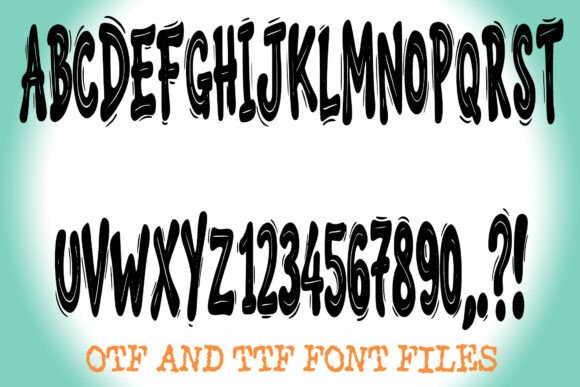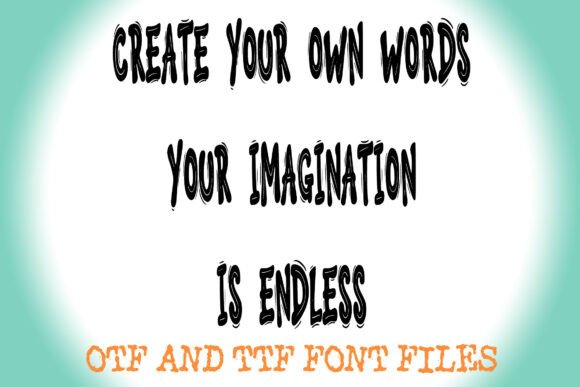
Adding a Dash of Whimsy to Your Designs
Remember the thrill of creating something entirely new, with the world of possibilities stretching out before you like a blank canvas? That’s exactly what happens when you bring the Bouncy Cartoon Font into your design projects. As you tap the keyboard, the words spring to life with a playful, carefree spirit that’s impossible to resist. This delightful font isn’t just a typeface – it’s an invitation to inject a little more joy and personality into your work.
Whether you’re crafting a children’s book, designing a YouTube thumbnail, or creating a social media graphic, the Bouncy Cartoon Font is an ideal choice. Its unique blend of whimsy and charm makes it an instant winner, guaranteed to put a smile on your audience’s faces and leave a lasting impression. With its hand-drawn feel and wobbly characters, this font is the perfect way to add a touch of magic to your designs.
Bouncy Cartoon Font Key Features
• Character Set: The font includes a wide range of characters, including uppercase and lowercase letters, numbers, punctuation, and special characters.
• Unique Characteristics: The font’s bouncy, cartoon-like design makes it ideal for children’s books, comics, and other creative projects that require a playful tone.
Bouncy Cartoon Font Review
At first glance, the Bouncy Cartoon Font is quite playful and eye-catching ✨. The use of rounded edges and exaggerated curves gives it a fun, childlike feel that’s perfect for cartoons, kids’ products, or any design that needs a lighthearted touch. The font’s versatility allows it to work well in both digital and print media.
One of the standout features of the Bouncy Cartoon Font is its ability to be customized ✨. Users can easily adjust the font’s size, color, and style to fit their specific needs. Additionally, the font’s OpenType features allow for advanced typographic control, making it a great choice for designers who want to add some personality to their work.
• ⚠️ Limited legibility in smaller text sizes: While the font is great for headings and titles, it may not be the best choice for body text or any situation where readability is crucial.
• ⚠️ May not work well in formal or professional contexts: The font’s playful nature may not be suitable for designs that require a more serious tone.
Overall, the Bouncy Cartoon Font is a great addition to any designer’s toolkit ✨. While it may have some limitations, its versatility, customizability, and fun personality make it a great choice for a wide range of design projects.
The Bouncy Cartoon Font is perfect for:
• Children’s party invitations and decorations
• Fun and playful marketing materials
• Illustrated books and comics
• Party and event banners